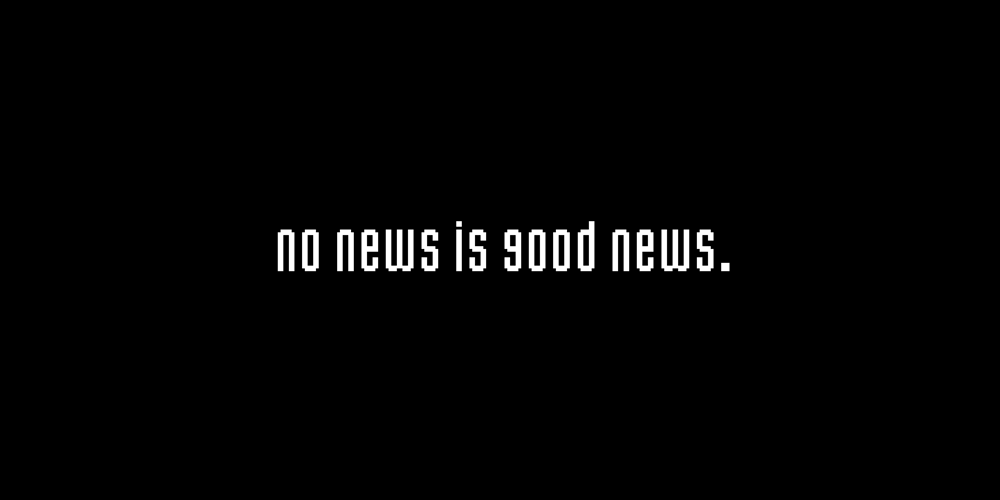
Flat20 Headline
Flat20 Headline font
Flat20 Headline Font Family was designed by Ryoichi Tsunekawa and published by Dharma Type. Flat20 Headline contains 1 styles and family package options. This 8-bit pixel font is designed with respect for 80’s game designers and the pixel font pioneers in middle 90’s. Recommended use at 20 pixels or multiples of 20 and anti-alias off. List of our Pixel Font Project. ·Flat10 Antique ·Flat10 Artdeco ·Flat10 Arts&Crafts ·Flat10 fraktur ·Flat10 Holy ·Flat10 Holly ·Flat10 Segments ·Flat10 Stencil ·Flat20 Gothic ·Flat20 Headline ·Flat20 Hippies ·Flat20 Streamer ·Behrensmeyer Vigesimals ·Civilite Vigesimals